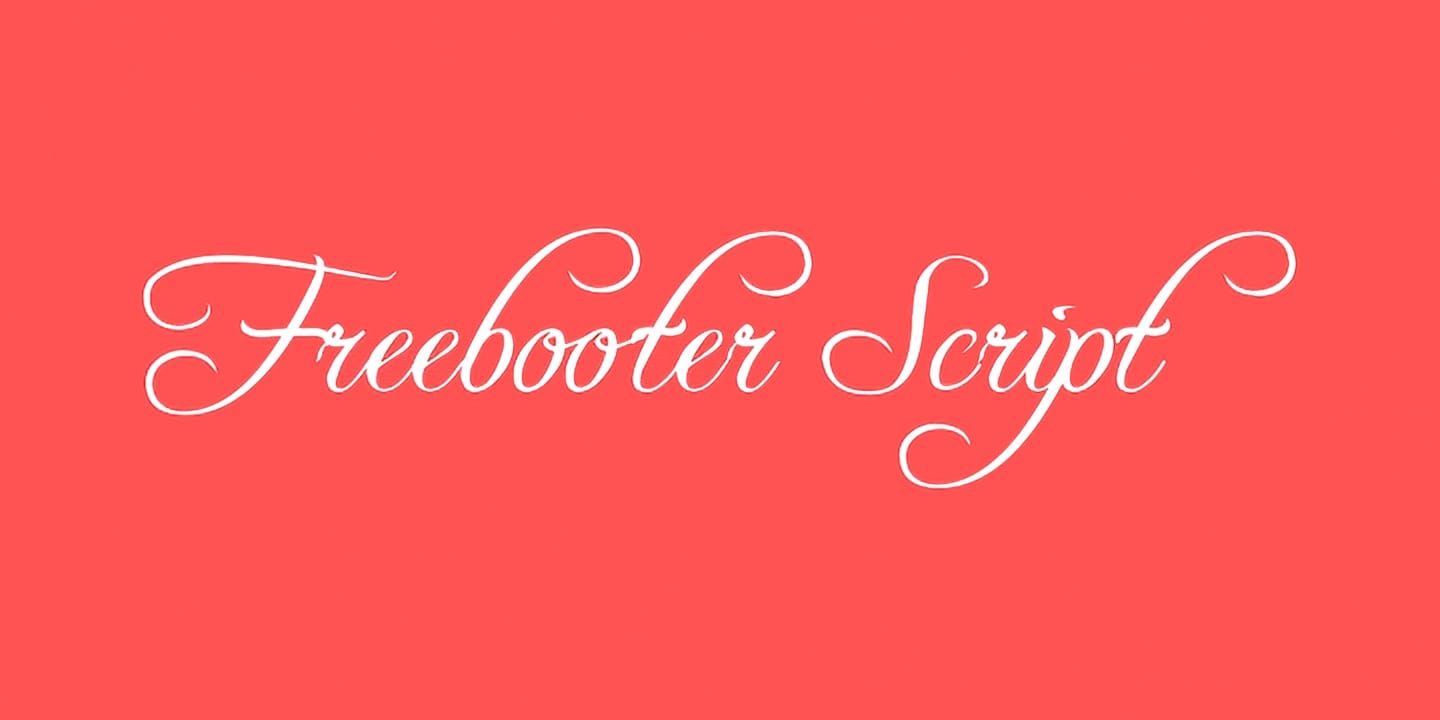
Freebooter Script is a unique font that captures the essence of handwritten styles with a playful twist. Ideal for projects that require a personal touch, this font works well in both print and digital formats. Whether you're designing invitations, creating branding materials, or working on personal projects, Freebooter Script offers versatility.
The flowing lines and whimsical curves of the letters lend a charming aesthetic, making any text feel more approachable. It’s important to note that while the font is striking, it remains easy to read, ensuring your message is conveyed clearly.